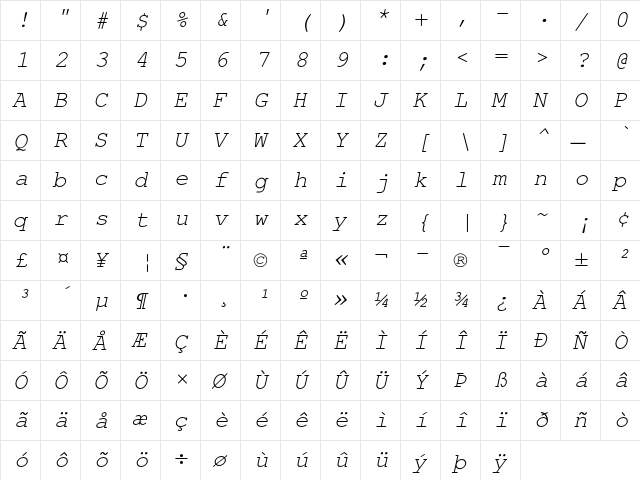
TeX Gyre Cursor Italic
Design Context for TeX Gyre Cursor Typeface
TeX Gyre Cursor is a composed and adaptable typeface that performs quietly and consistently across a wide range of design contexts. The slanted form adds forward momentum and visual energy.
Pro Tip: Try TeX Gyre Cursor for annotation and caption copy alongside an upright companion — the contrast in angle creates a dynamic but ordered typographic system.